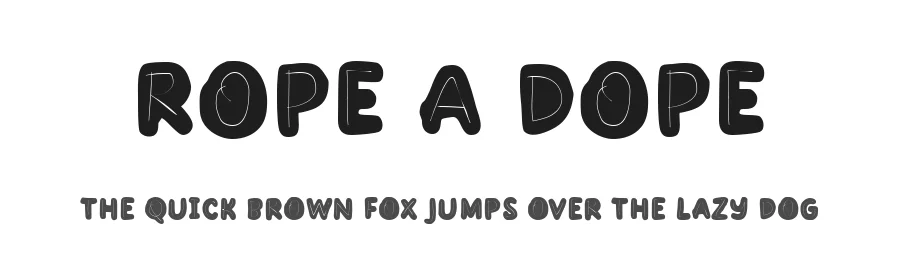
About Urban Ranger Font
| Designer | Rangga Singgih Subekti |
Urban Ranger ships with 1 OpenType feature you can switch on in apps that support them (Illustrator, InDesign, Affinity, Figma, CSS font-feature-settings).
Urban Ranger supports 221 languages.
Urban Ranger Font is a decorative font that shines as a display or heading face. Pair it with a clean sans-serif or serif font for body text β the contrast creates a clear hierarchy while the two styles stay balanced and easy to read.